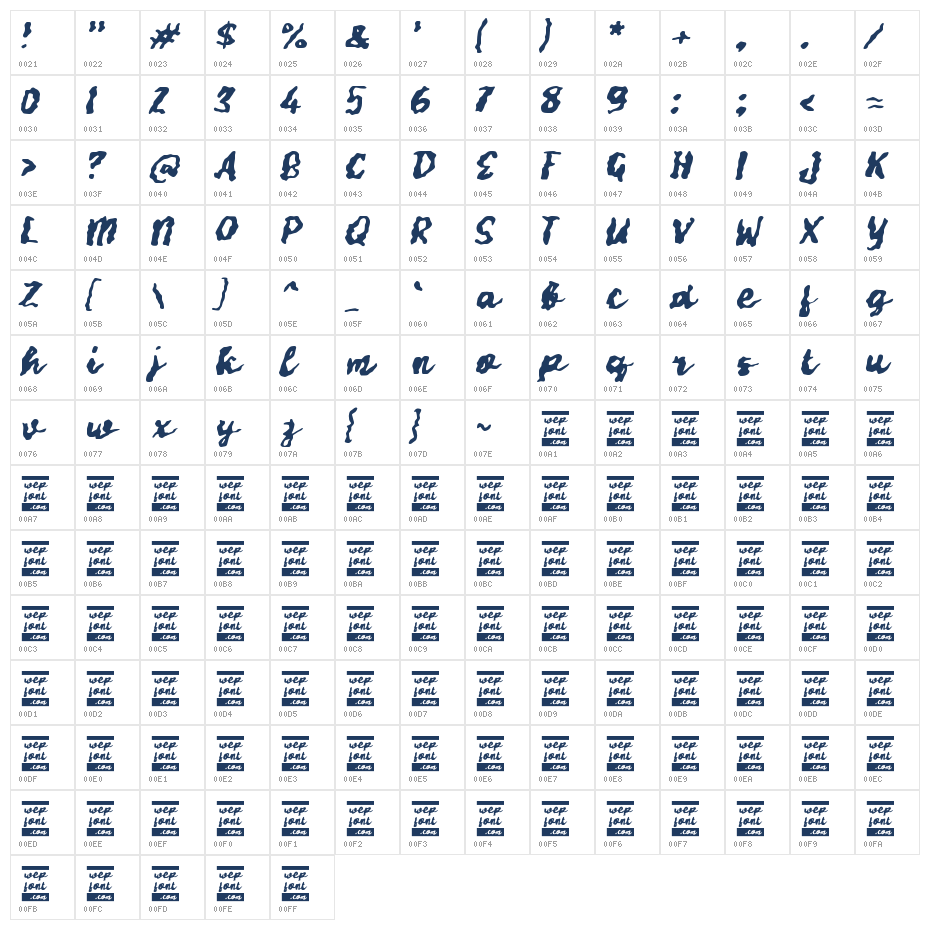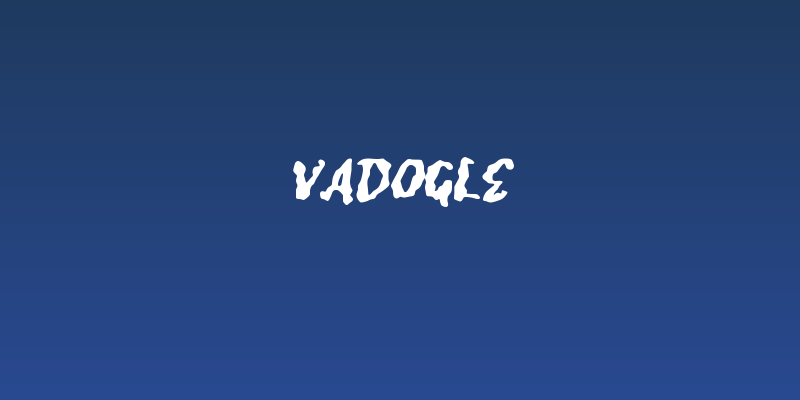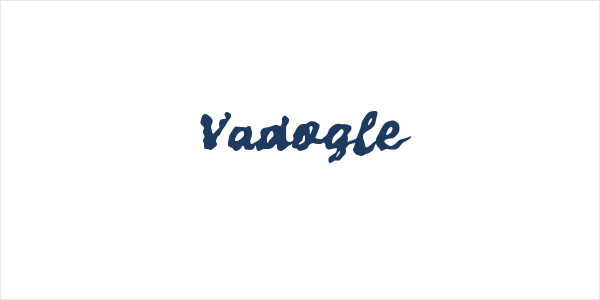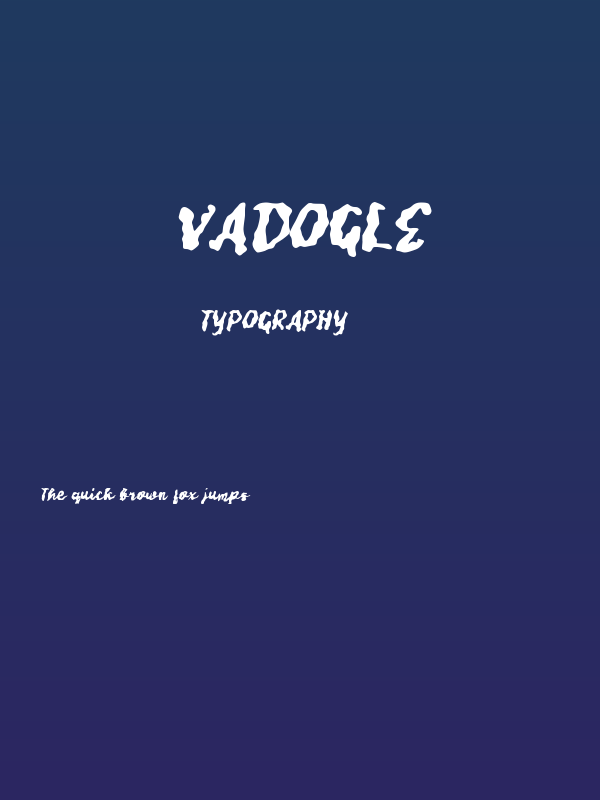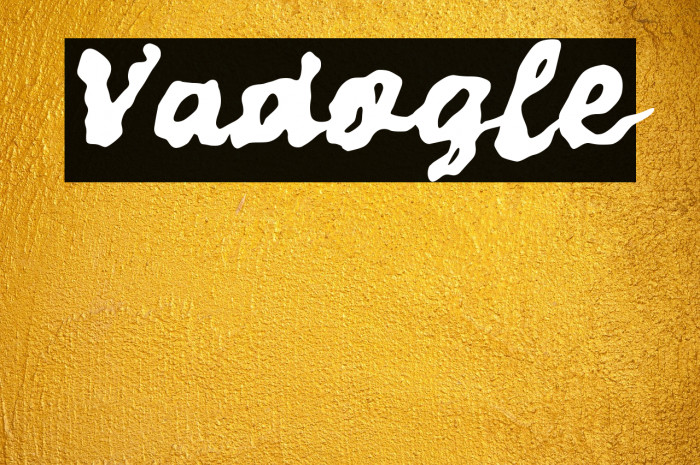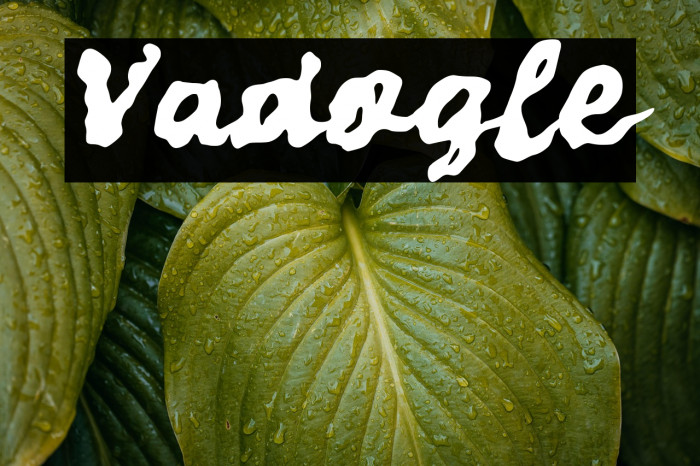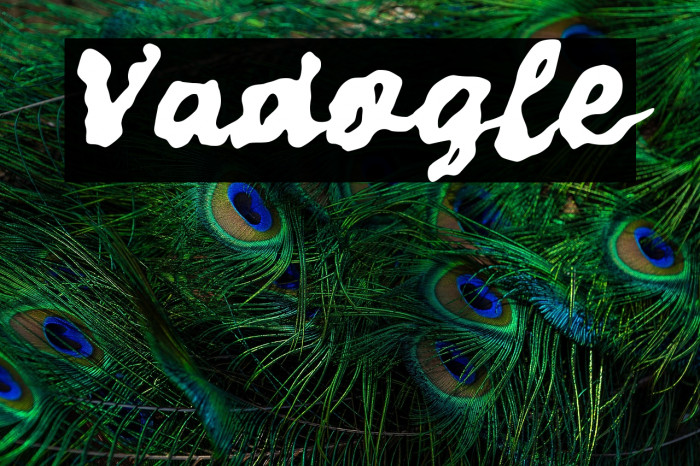
Vadogle Font
Vadogle Description
A bold, brush-stroke style handwritten font with irregular, jagged edges and a casual, artistic appearance.
| Overall Style | Casual, Artistic, Handwritten |